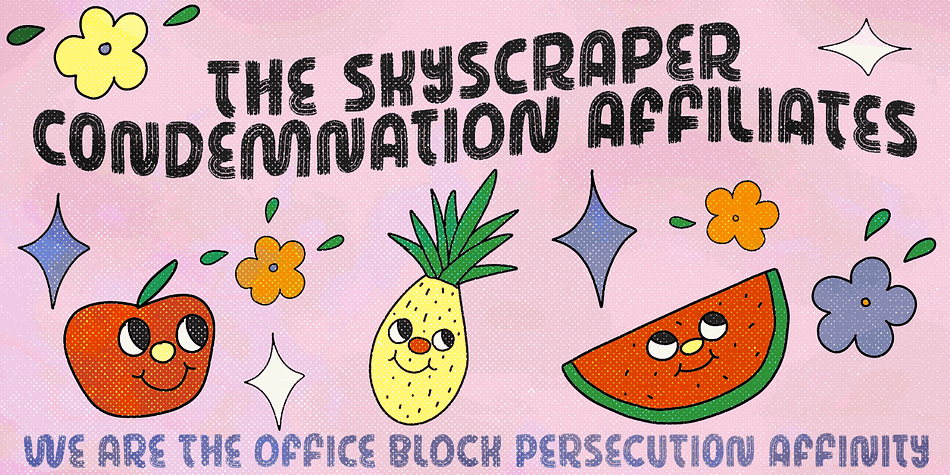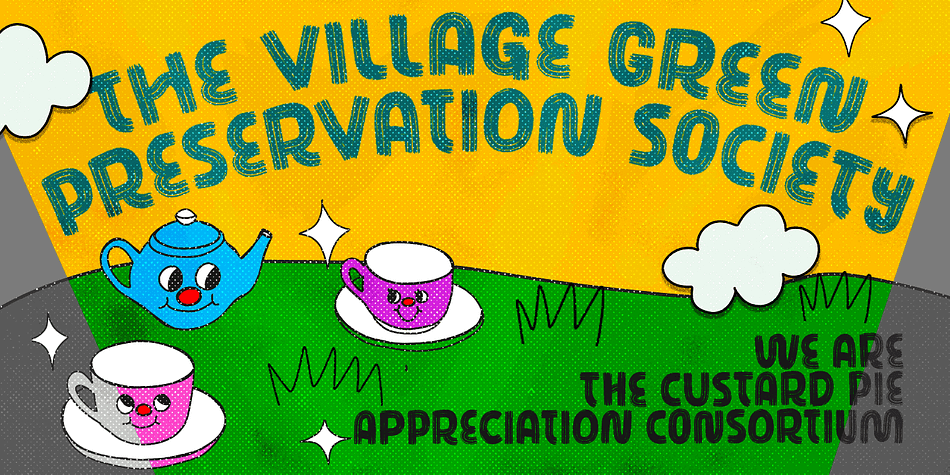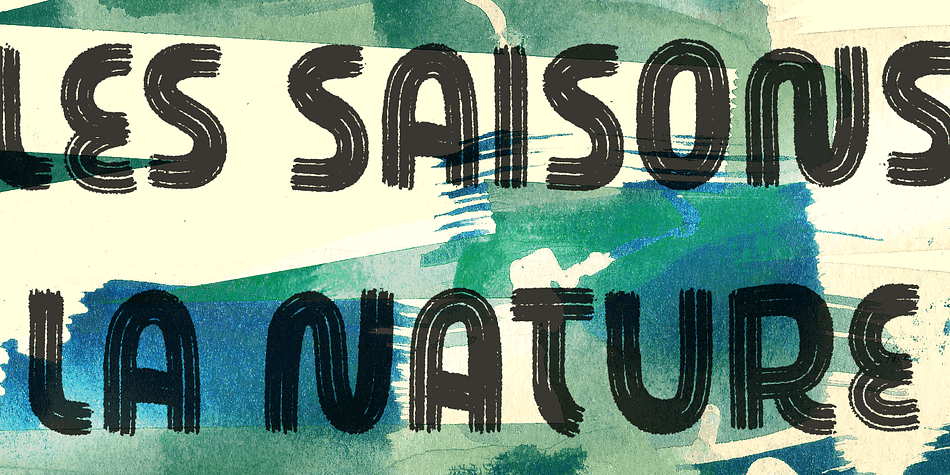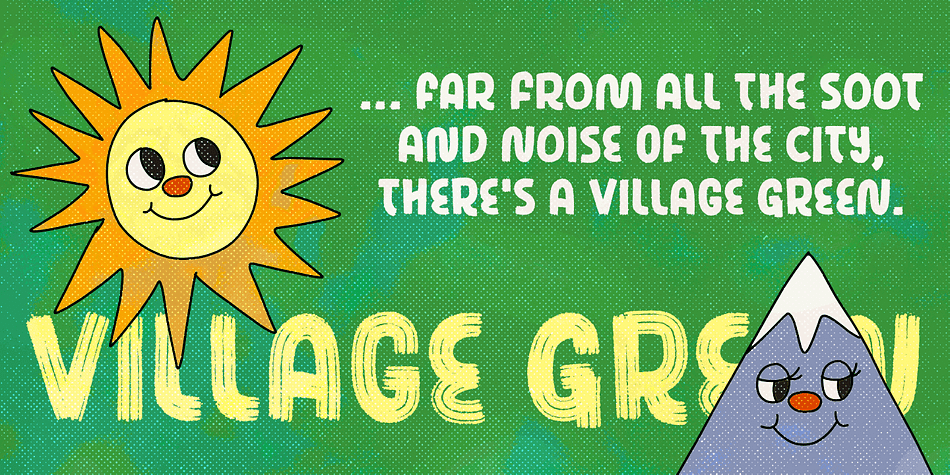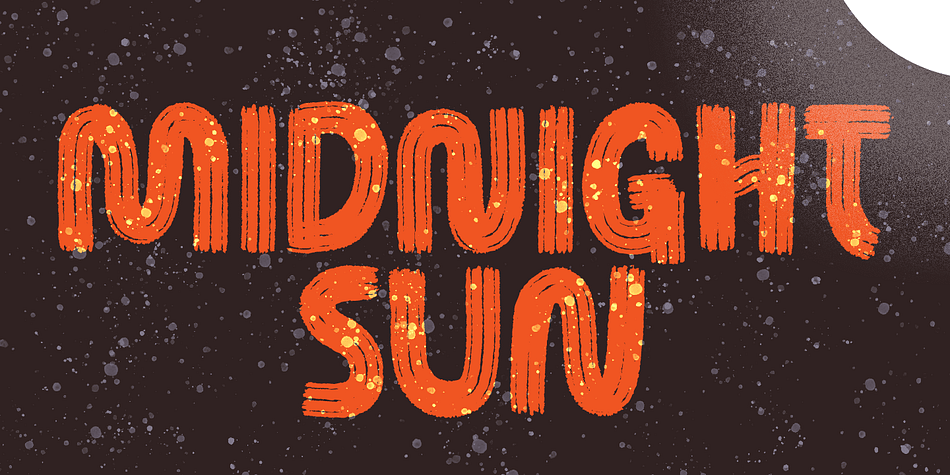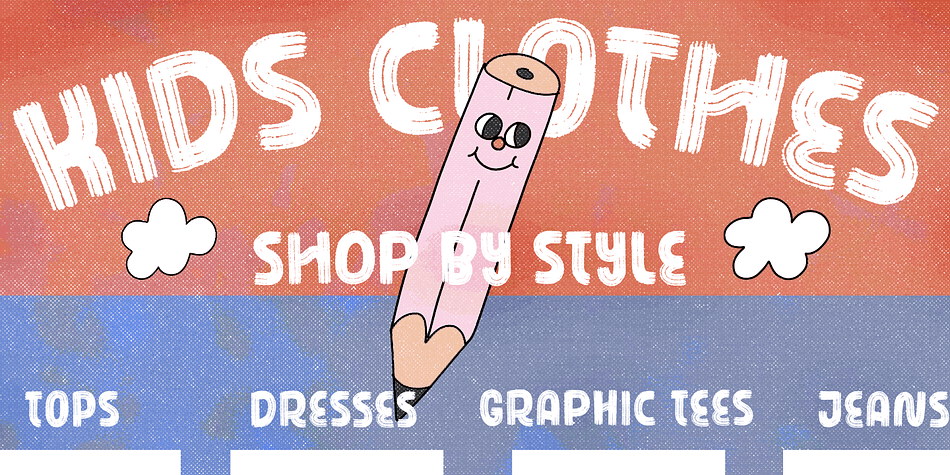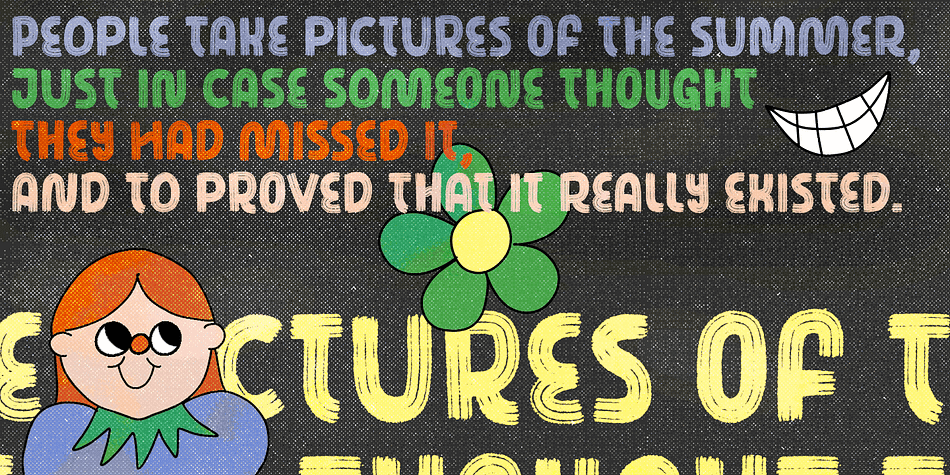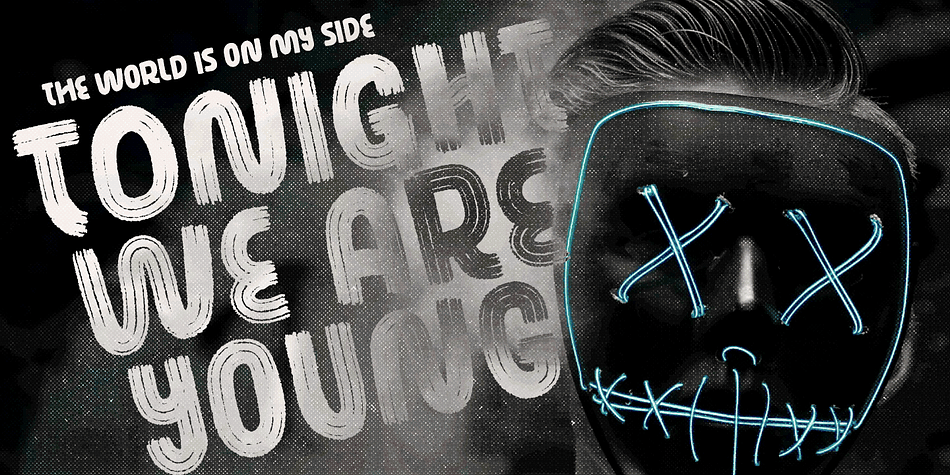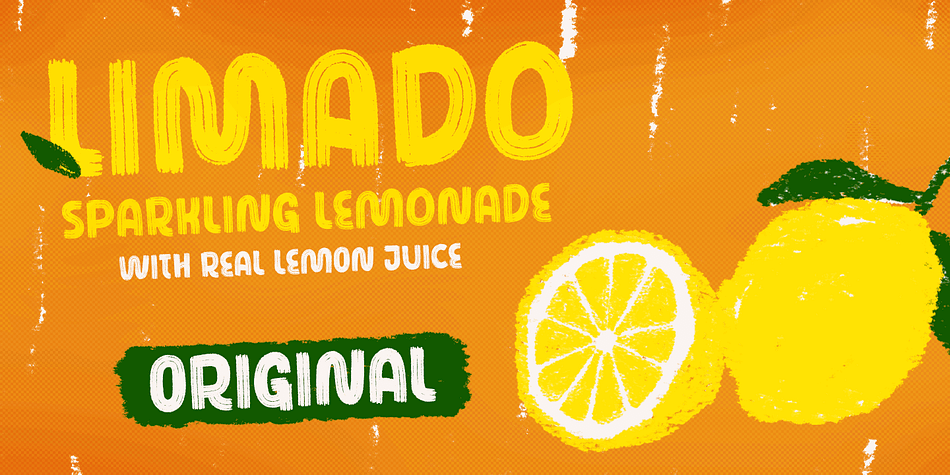
Designed by Ricardo Marcin and Erica Jung, Search is a brush display and hand display font family. This typeface has two styles and was published by PintassilgoPrints.
Search is a brush script font, seasoned with unconventional choices here and there – ‘Hey, they are everywhere!’, one may say, and that’s okay. This is a contemporary upbeat font with loads of personality and yet some alternates: there are two choices for each letter, delivering that nice, organic, tasty handmade feel. Available in two flavors: with and without a dry brush texture.